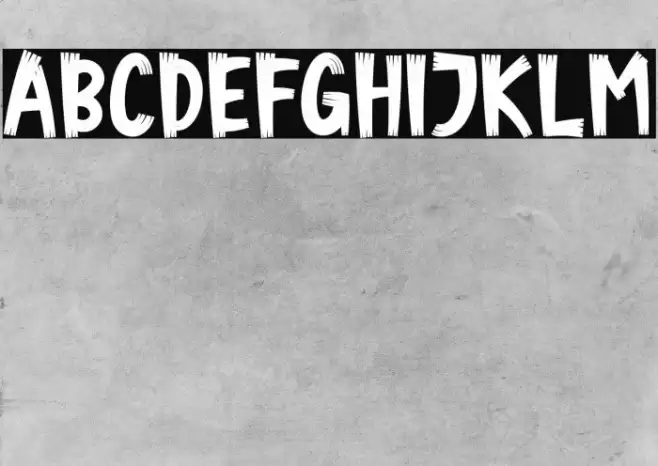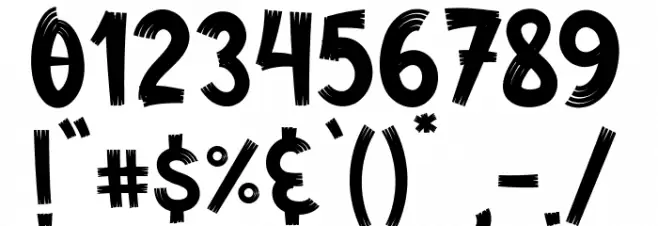
Daily Milk Font
Daily Milk Description
This font features a playful and bold design with a hand-drawn aesthetic. The characters have a slightly irregular shape, giving them a whimsical and energetic feel. The strokes are thick and varied, adding a sense of movement and dynamism. The uppercase and lowercase letters maintain a consistent style, with rounded edges and a slightly condensed form. Numbers and special characters follow the same playful theme, making the font versatile for creative projects. The overall appearance is both fun and approachable, ideal for designs that require a lively and informal touch.
A playful, bold, hand-drawn font with a whimsical and energetic style from Cartoon fonts.
- Proposed Projects: Ideal for children's books, playful branding, posters, and greeting cards.
- Overall Style: Playful, Energetic, Hand-drawn
- Use Case: Headlines, Posters, Branding